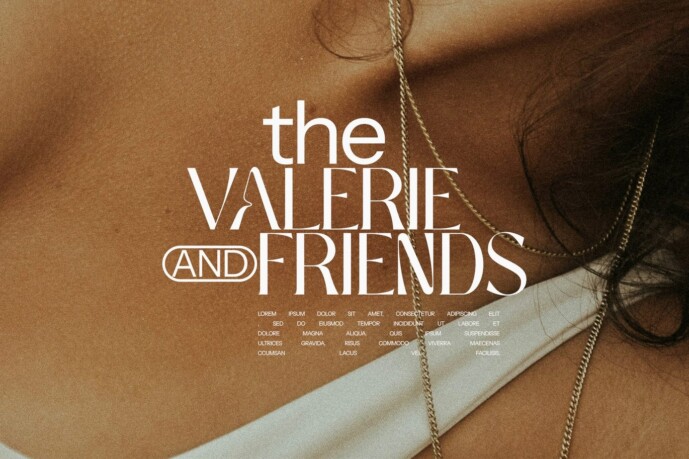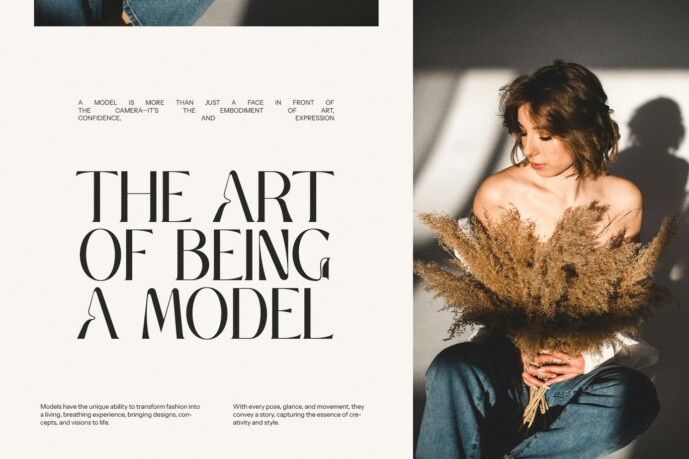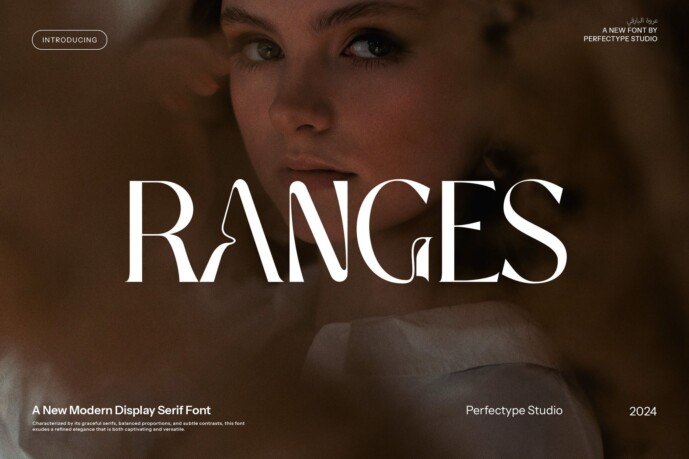
Ranges Font
Ranges Font. This is a very elegant and classy font for all branding and logo designs. This type of Serif font is made with elegance and luxury so it is perfect for all your design uses. This type of font is perfect for your various needs like branding projects, logos, social media posts, advertisements, labels, product packaging, photography, wedding designs, watermarks, invitation product designs, stationery and any project created with a high standard of readability.